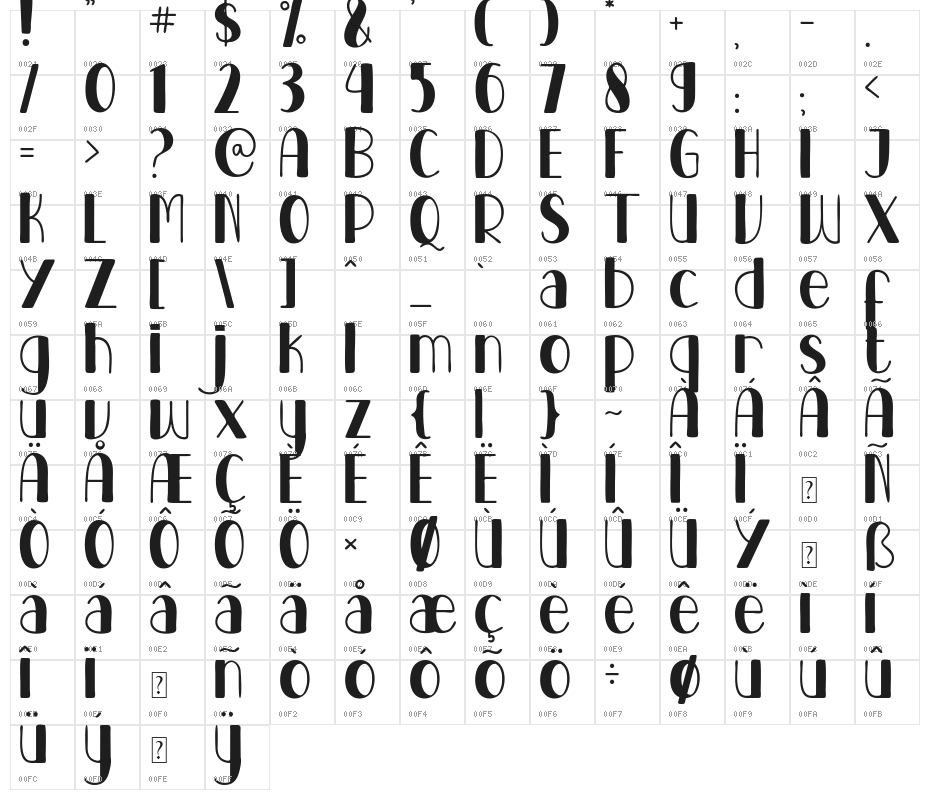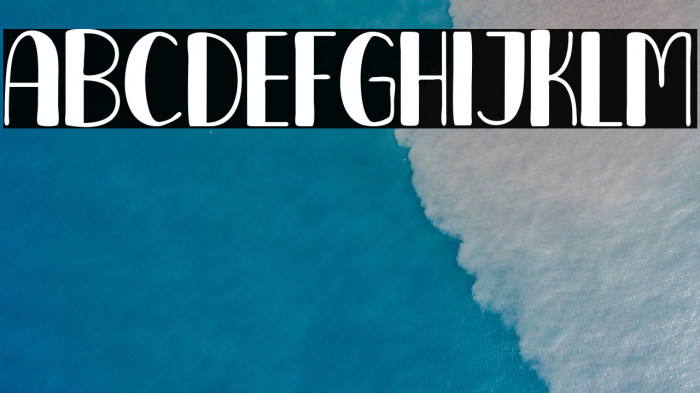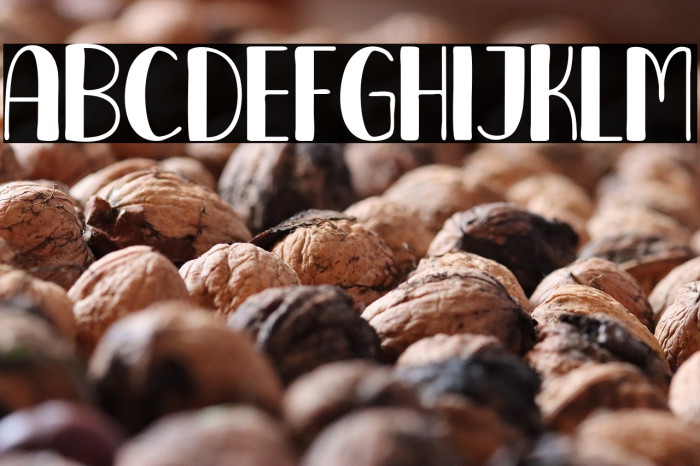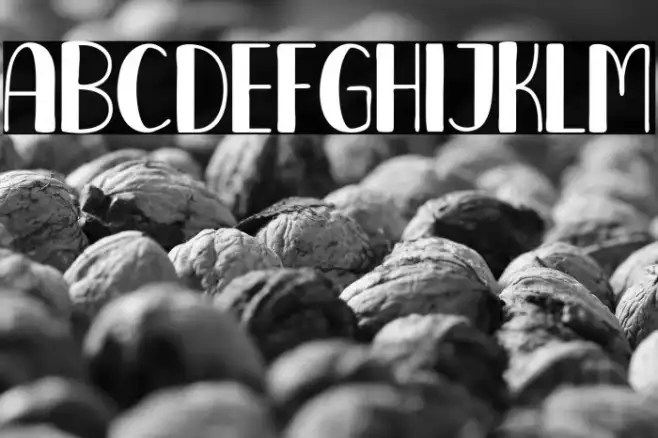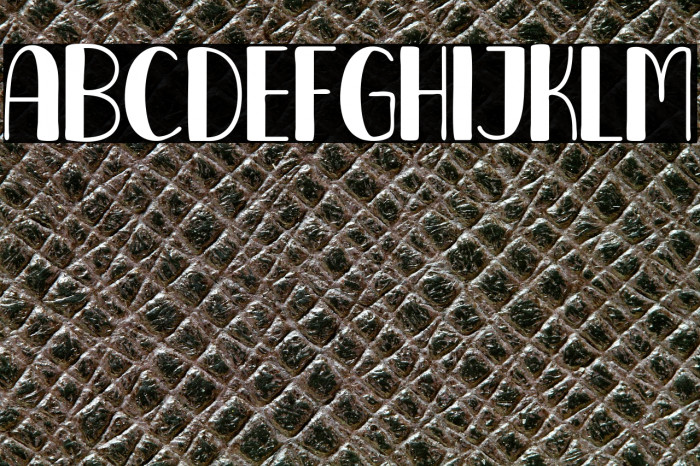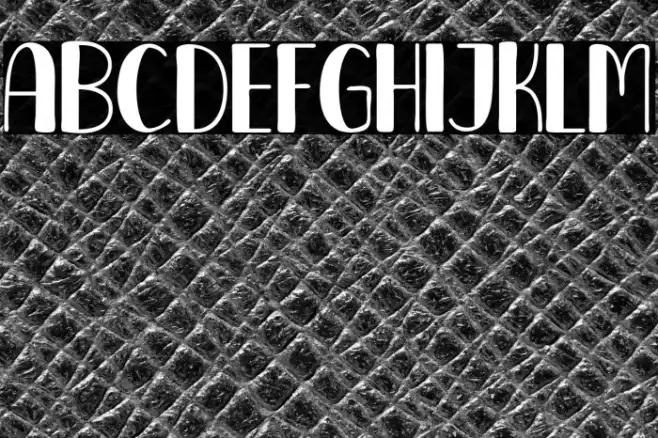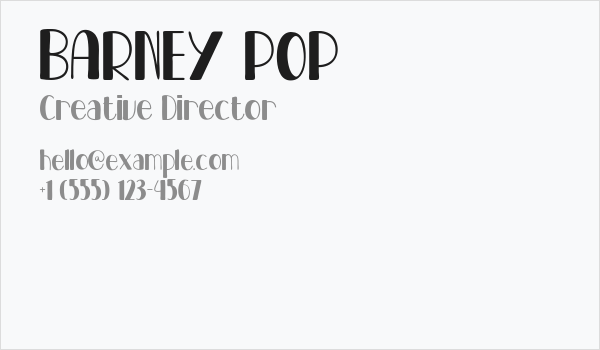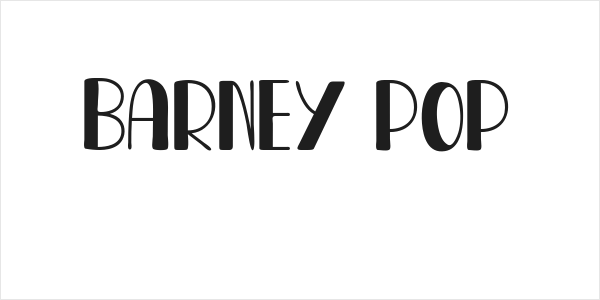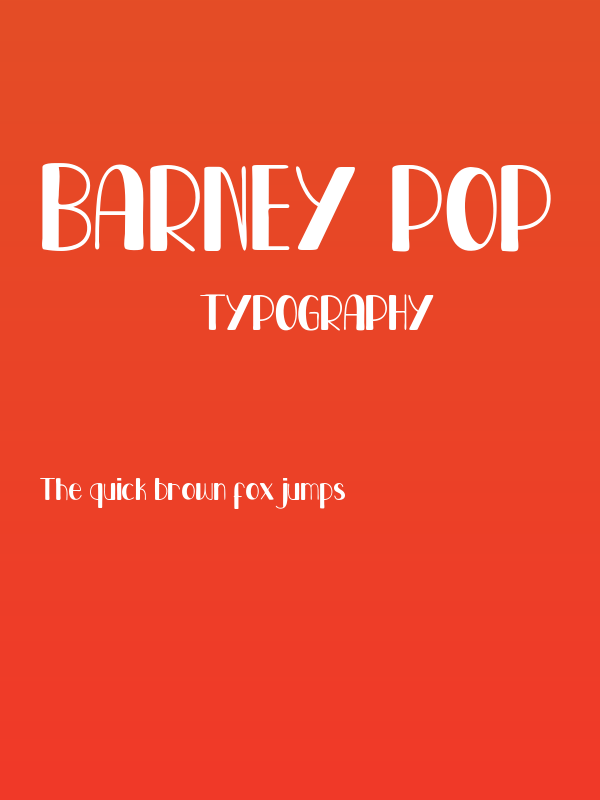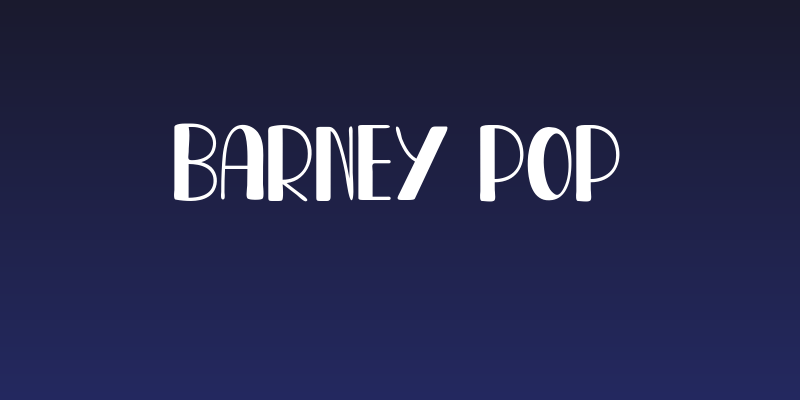
BARNEY POP Font
BARNEY POP Description
This playful and bold font features a unique blend of rounded and straight edges, creating a whimsical yet structured appearance. The uppercase letters are tall and narrow, with a slight curve that adds a touch of elegance. The lowercase letters maintain a consistent style, with some characters like 'e' and 'g' showcasing distinctive loops. Numbers are bold and slightly condensed, matching the overall playful theme. Special characters are creatively designed, adding to the font's charm. This font is perfect for projects that require a fun and engaging look.
| Proposed Projects | Great for children's books, playful branding, posters, and creative invitations. |